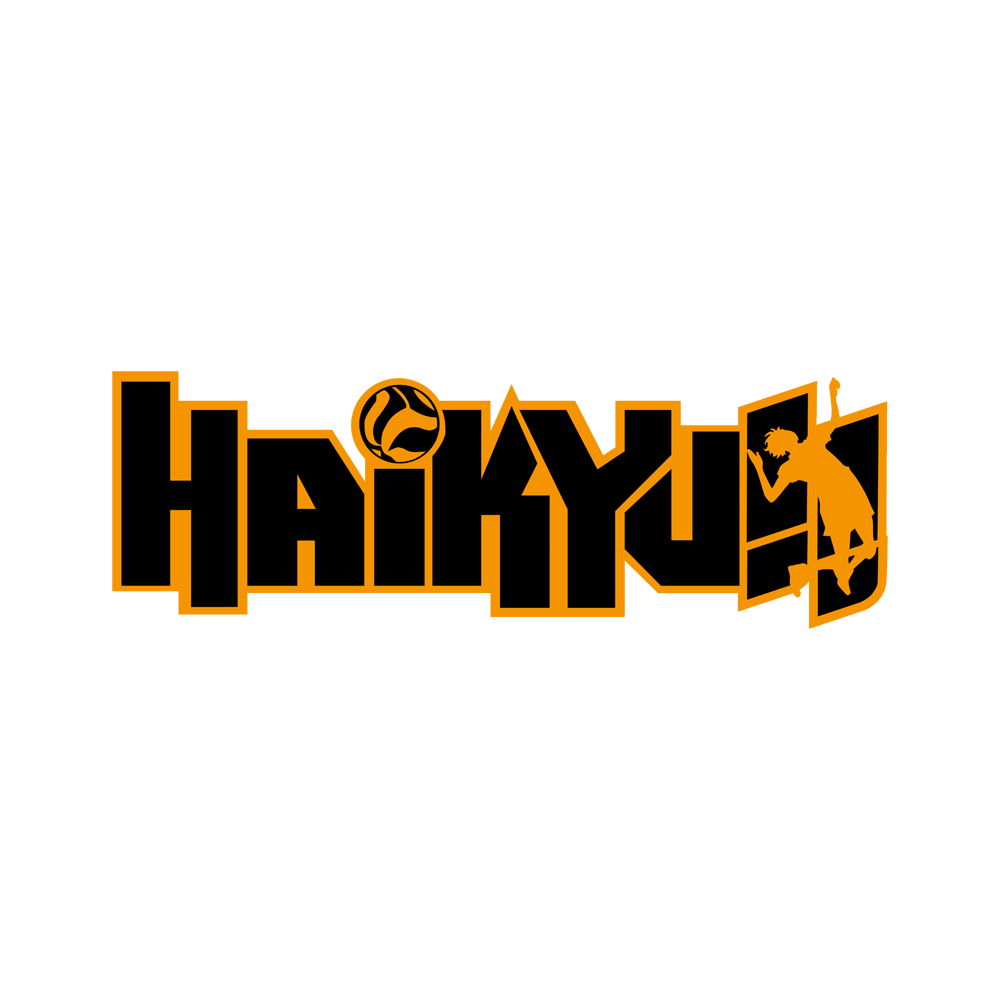
Haikyu Font
AnimationHaikyu!! is a manga series written and illustrated by Haruichi Furudate about Shoyo Hinata, a volleyball team captain as he works to overcome his own limitations and lead his team to the top.
This Haikyu English title looks very similar to the Dimitri font by Fontalicious. The font is free for personal use.